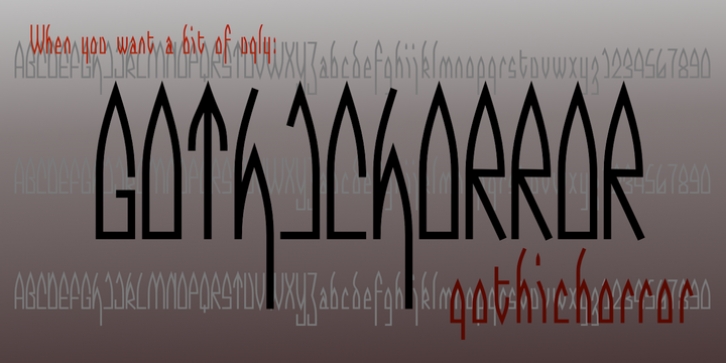
GothicHorror downloadDesigner: Robert Schenk
Publisher: Ingrimayne Type
What would a typeface look like that used a gothic arch as its theme?
I decided to find out and was horrified by the result. Still, some of the individual characters are interesting and might be used singly or in titles.